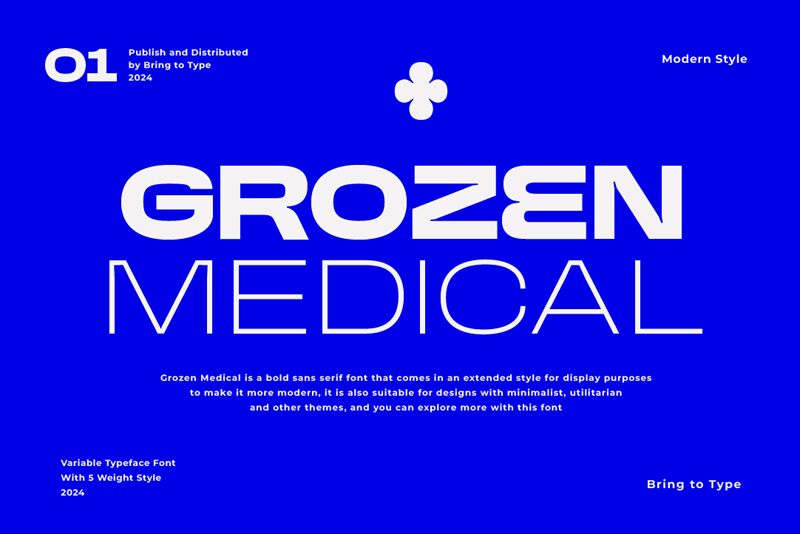
Grozen Medical font family by Bring to Type comes in 5 font styles and it’s a humanistic sans serif design that incorporates subtle geometric elements. With its minimalistic body and clean shape, it covers the most essential needs of any contemporary designer. Its nature is versatile and digital-oriented, which makes it suitable for a great variety of professional and commercial projects.
Grozen Medical is a font family that will excel on book covers, posters, digital and printed ads, packaging design, articles, branding and visual identity, social media visuals, or mobile apps. Its web performance is also excellent; therefore, it can be used on websites and blogs.